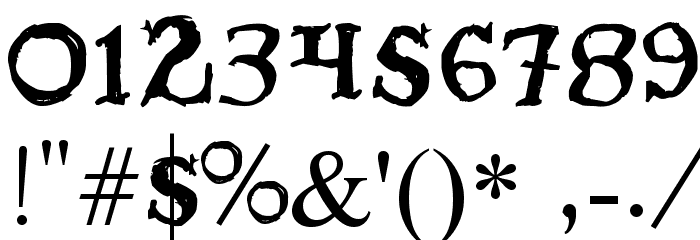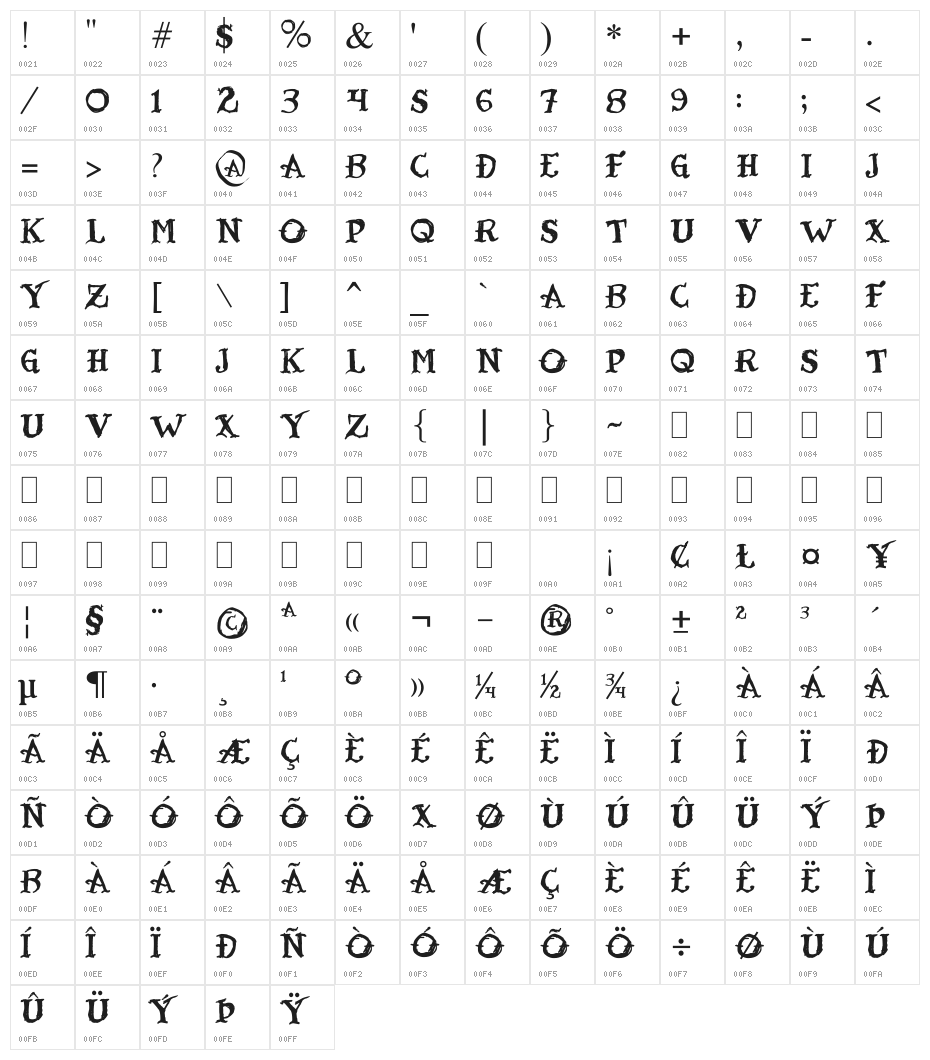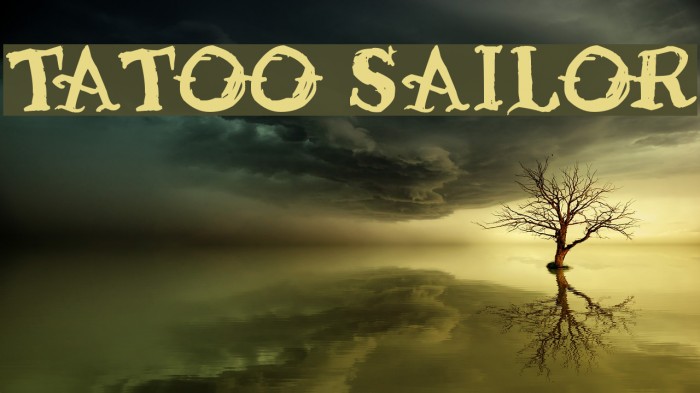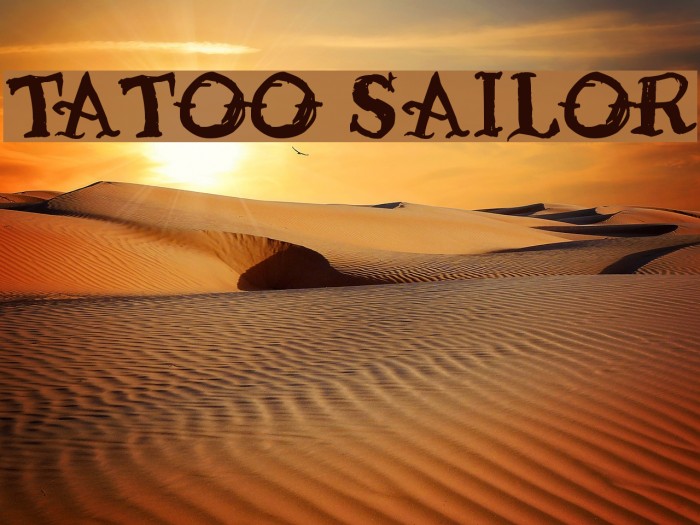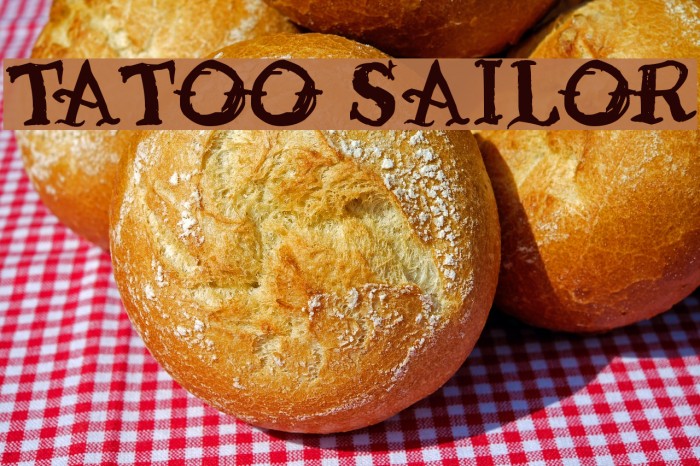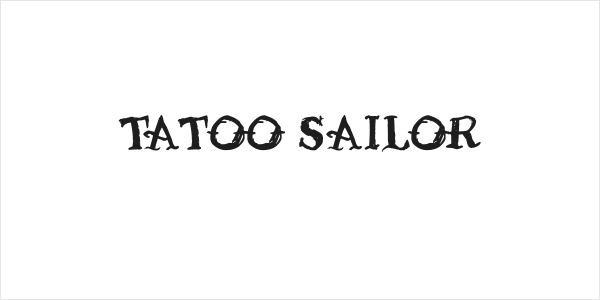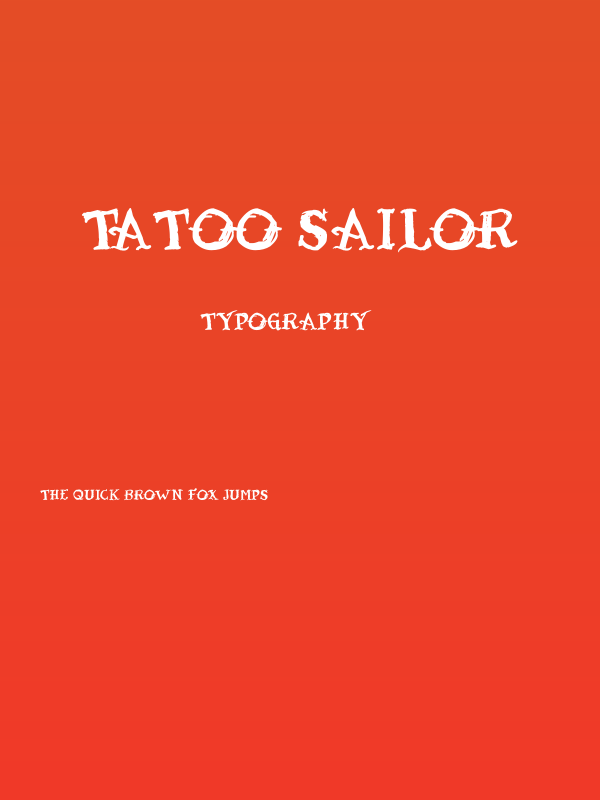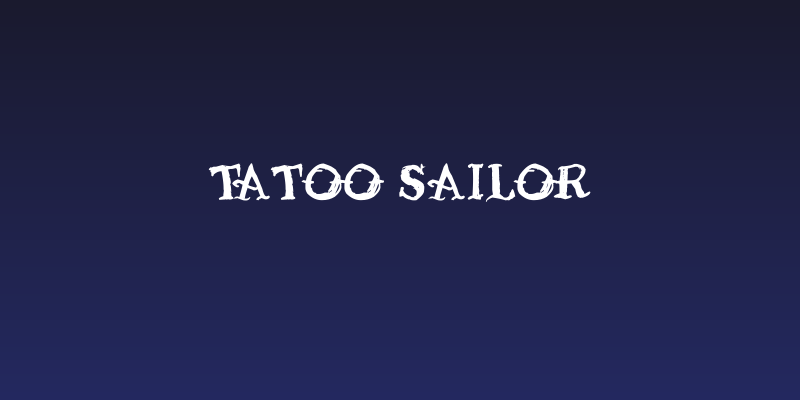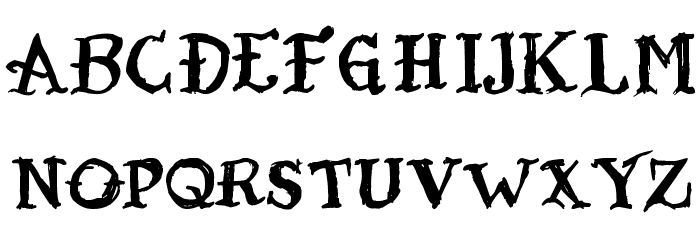
Tatoo Sailor Font
Tatoo Sailor Description
This font features a bold and rugged design, reminiscent of traditional sailor tattoos. The characters have a hand-drawn appearance with uneven edges and a slightly distressed look, giving them a vintage and rebellious feel. The uppercase and lowercase letters maintain a consistent style, with sharp angles and unique flourishes that add to the font's distinct personality. Numbers and special characters are equally bold and stylized, making them stand out. The overall design is eye-catching and perfect for projects that require a touch of nostalgia and boldness.
| Proposed Projects | Ideal for tattoo designs, vintage posters, branding for edgy products, and themed event invitations. |